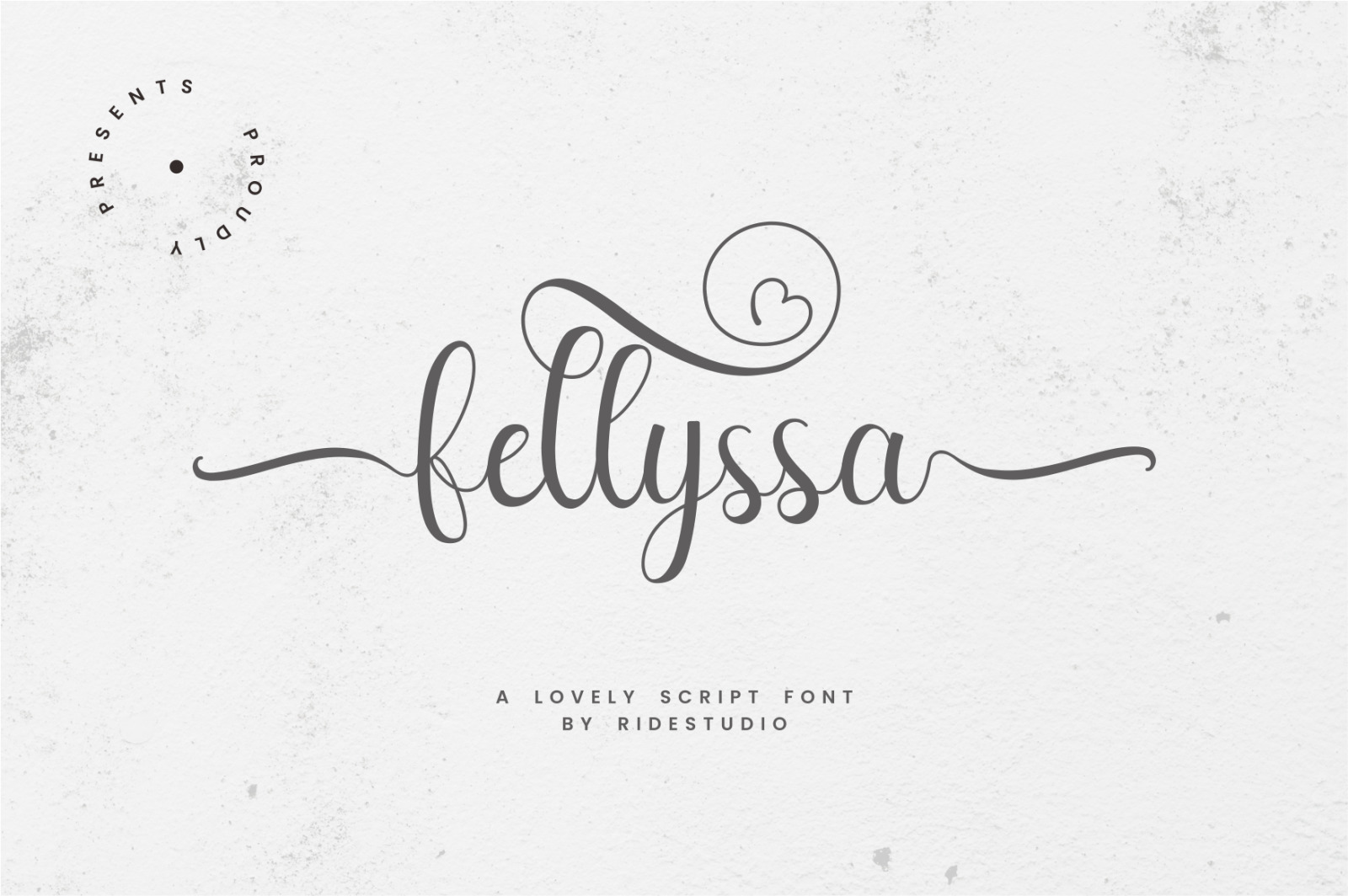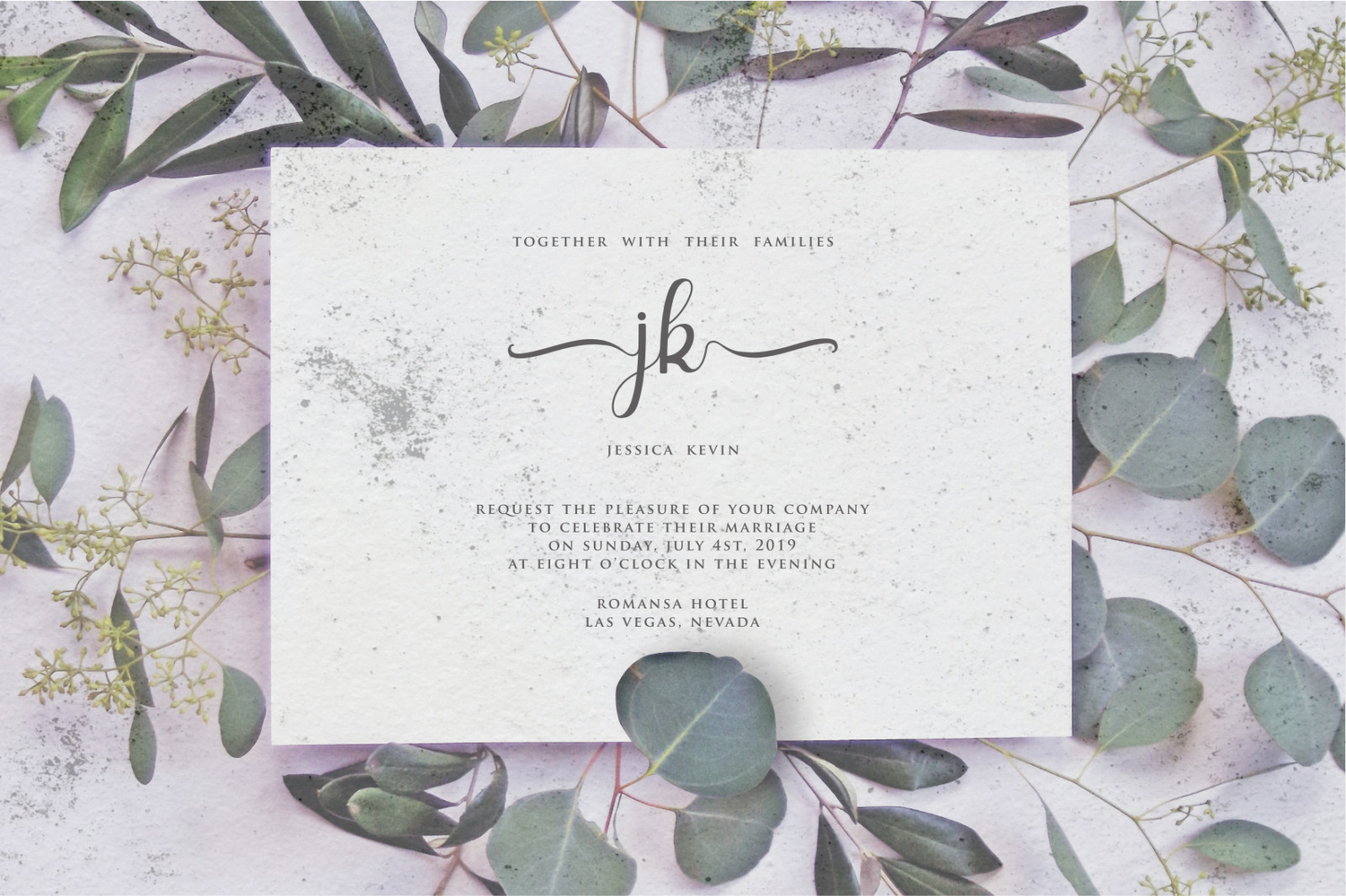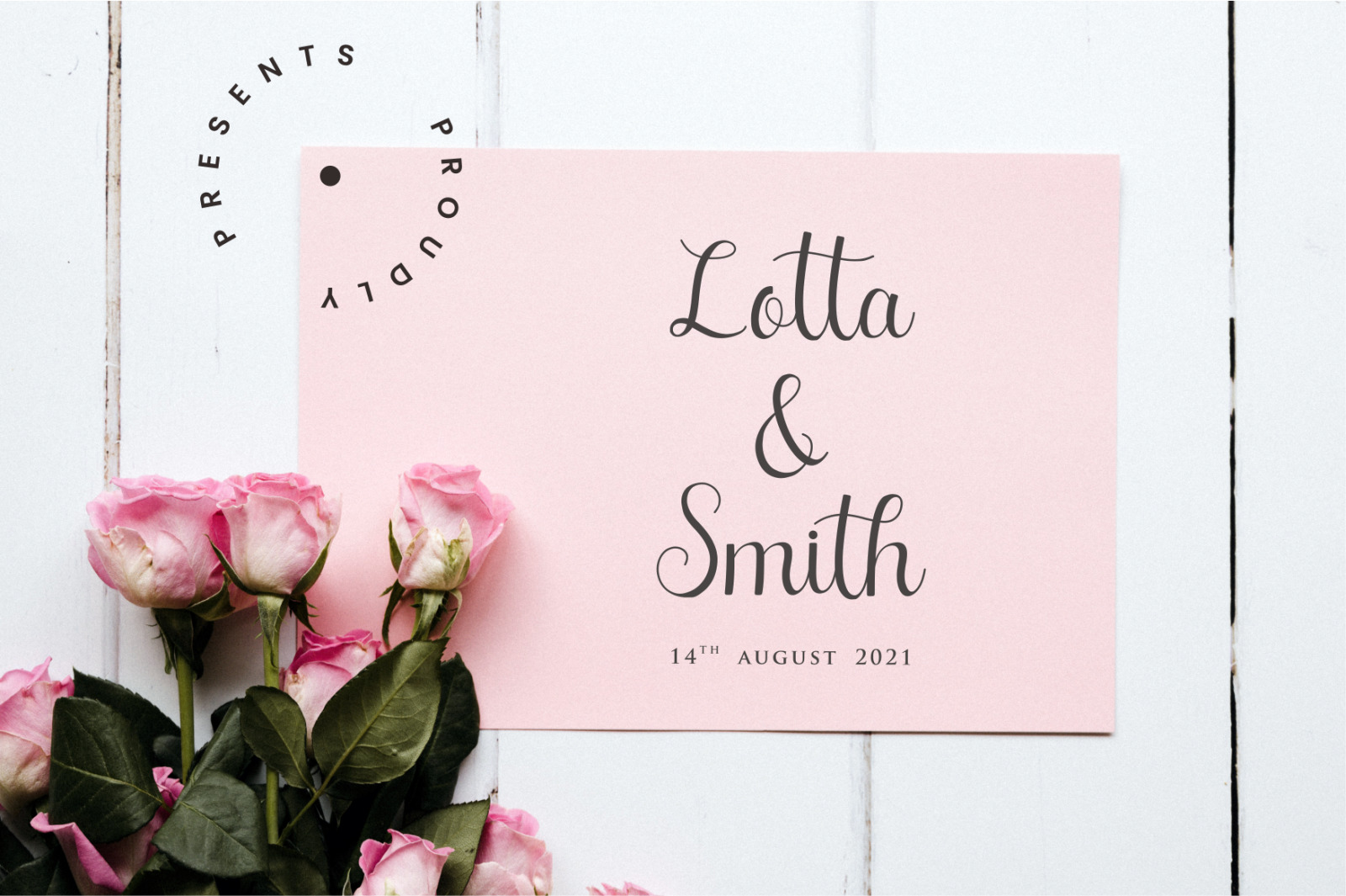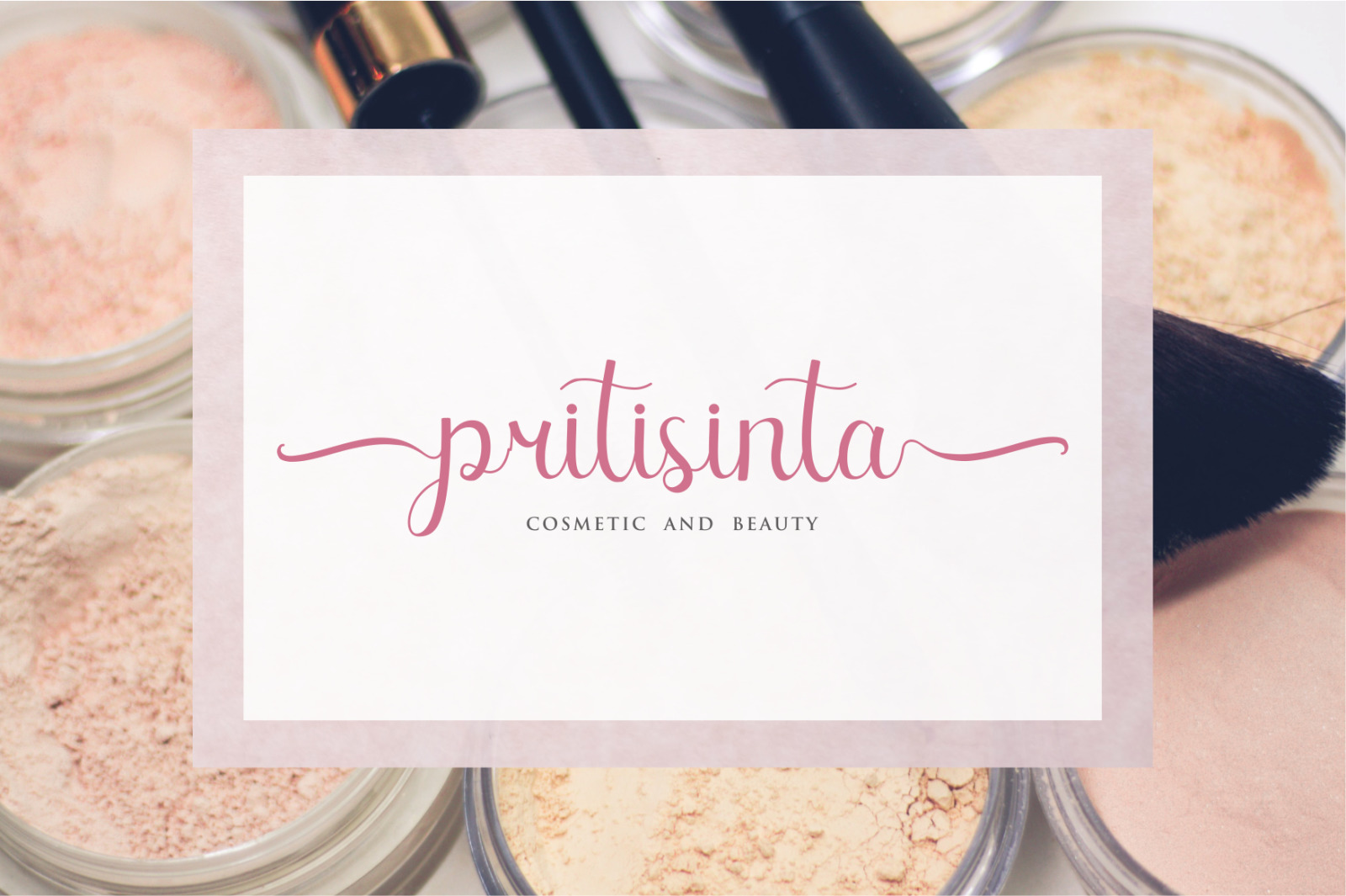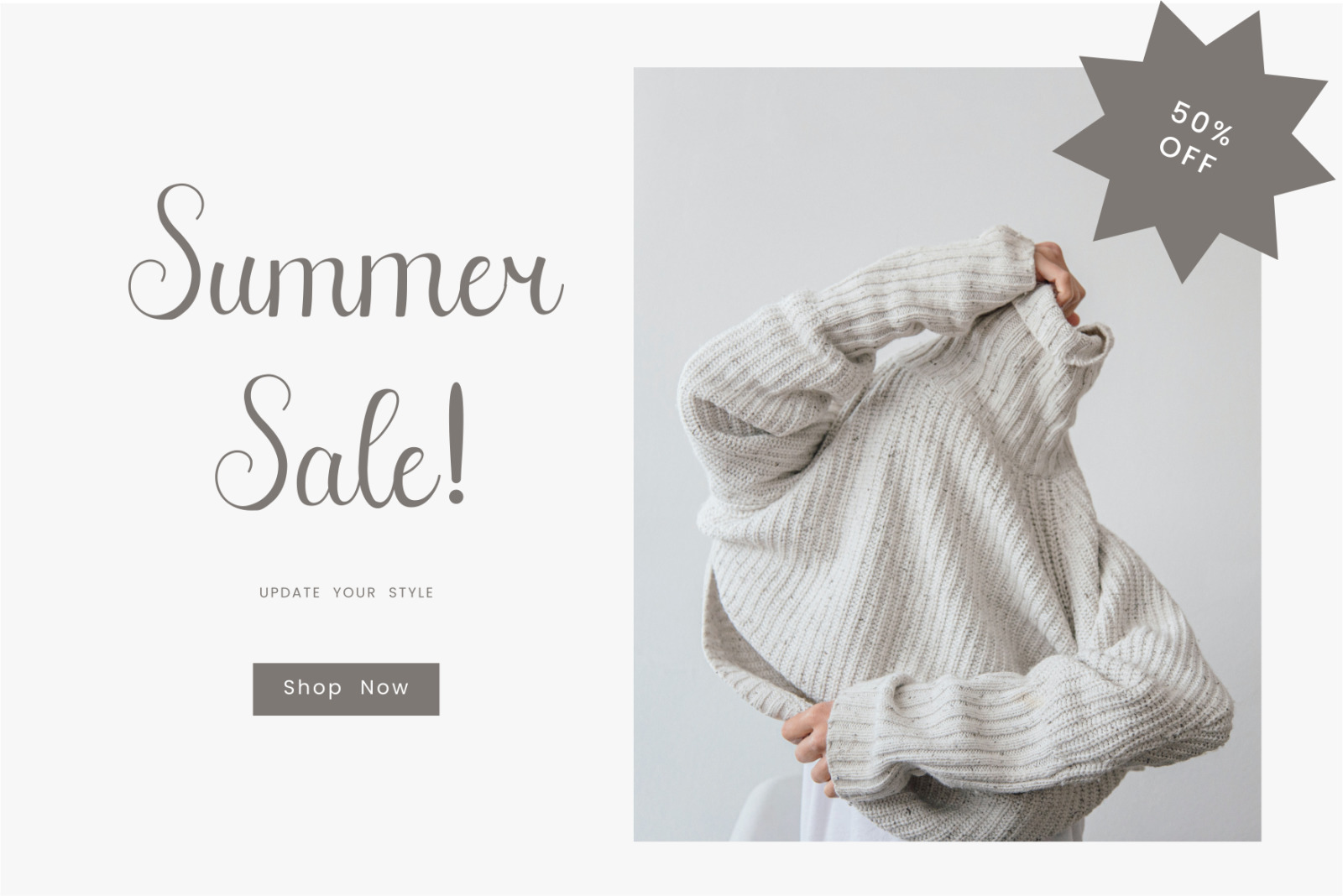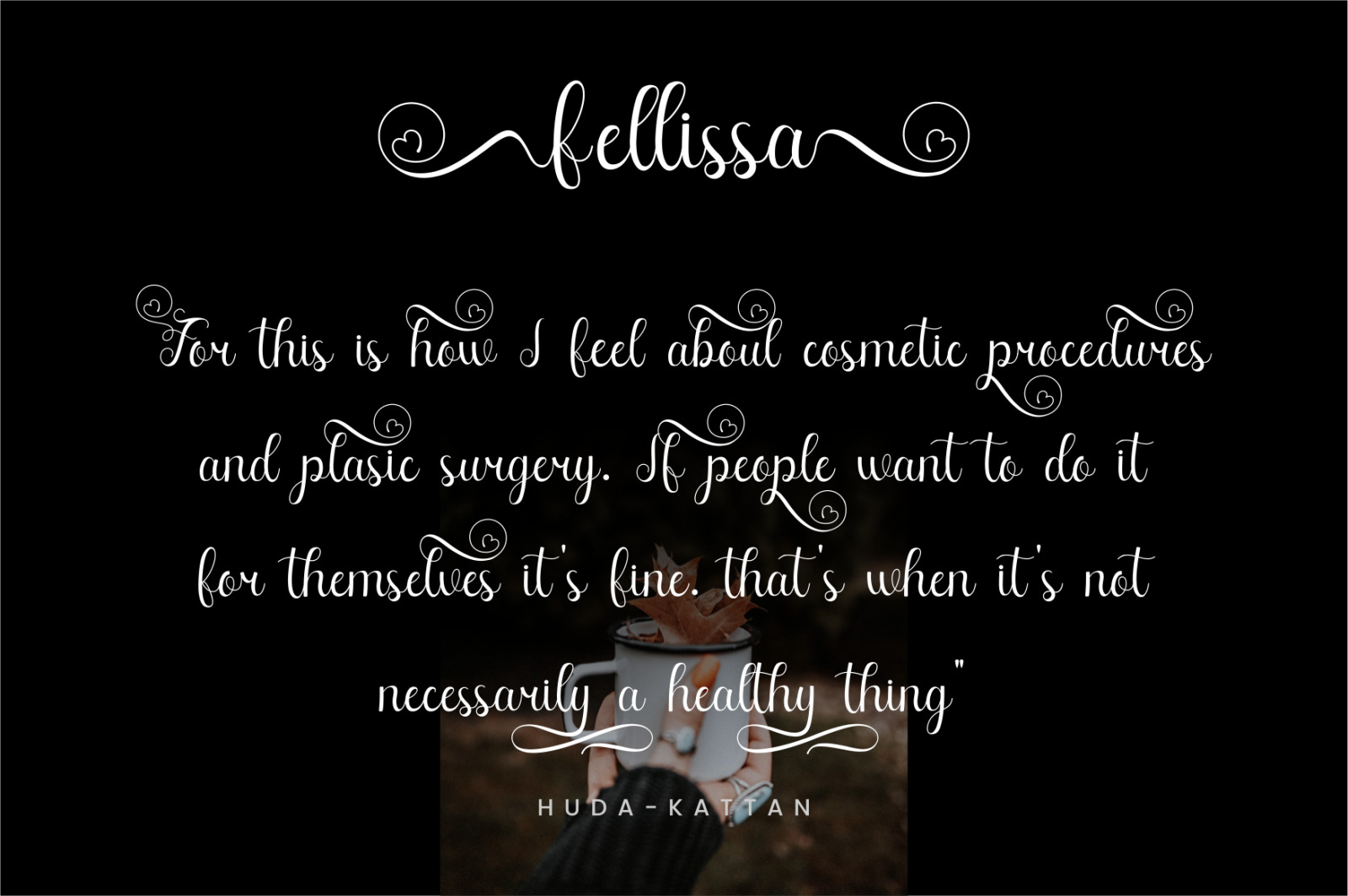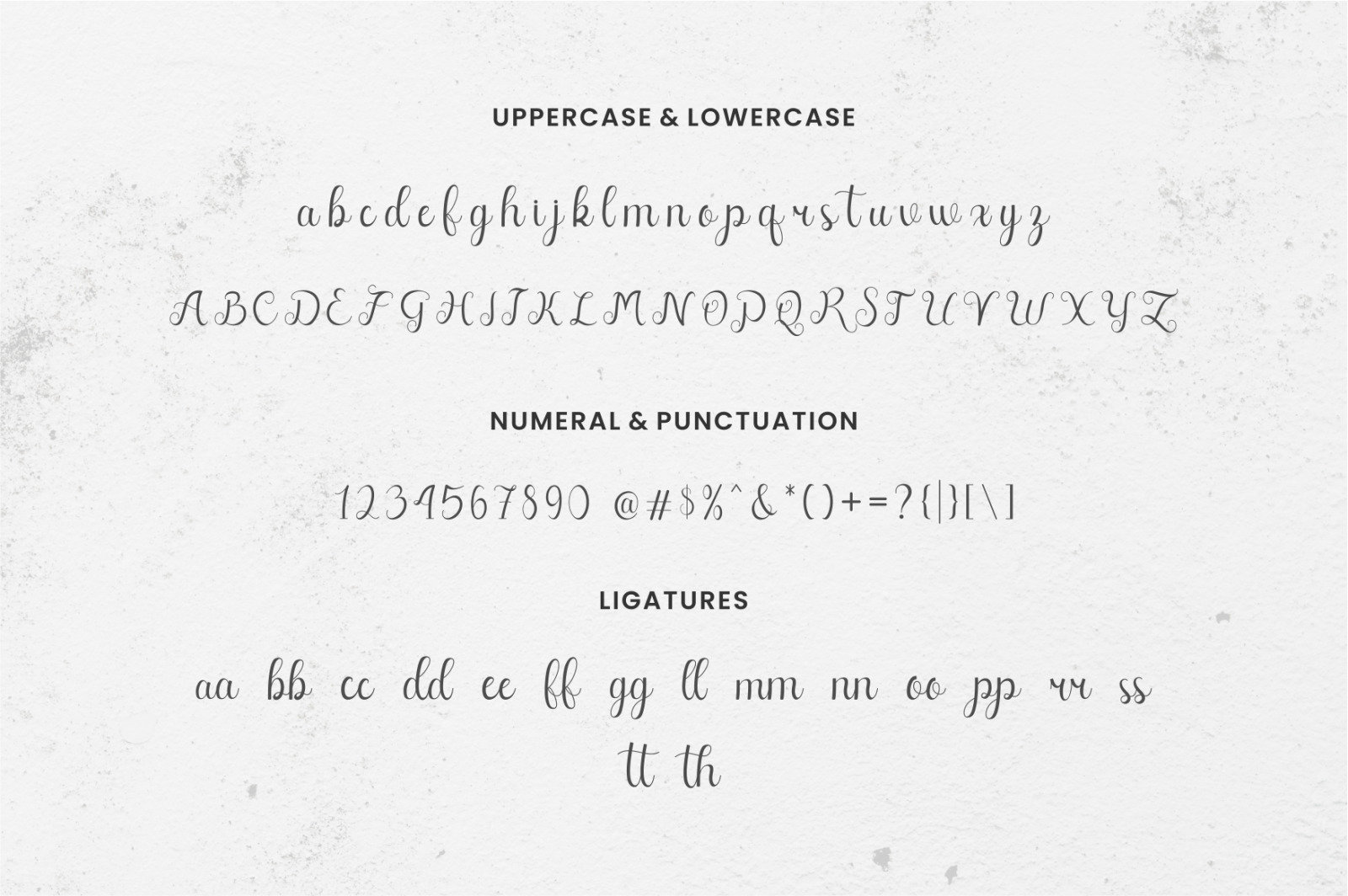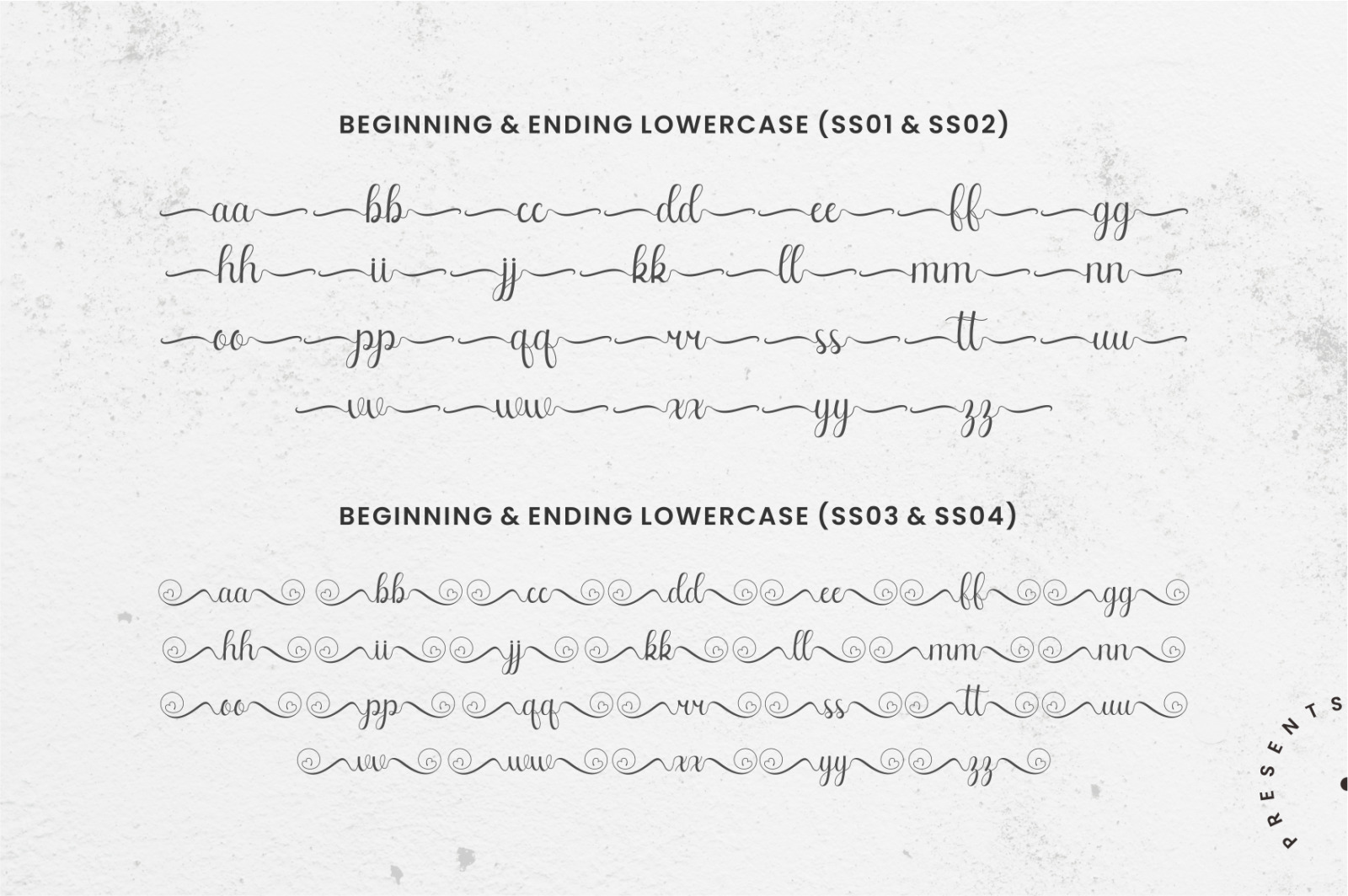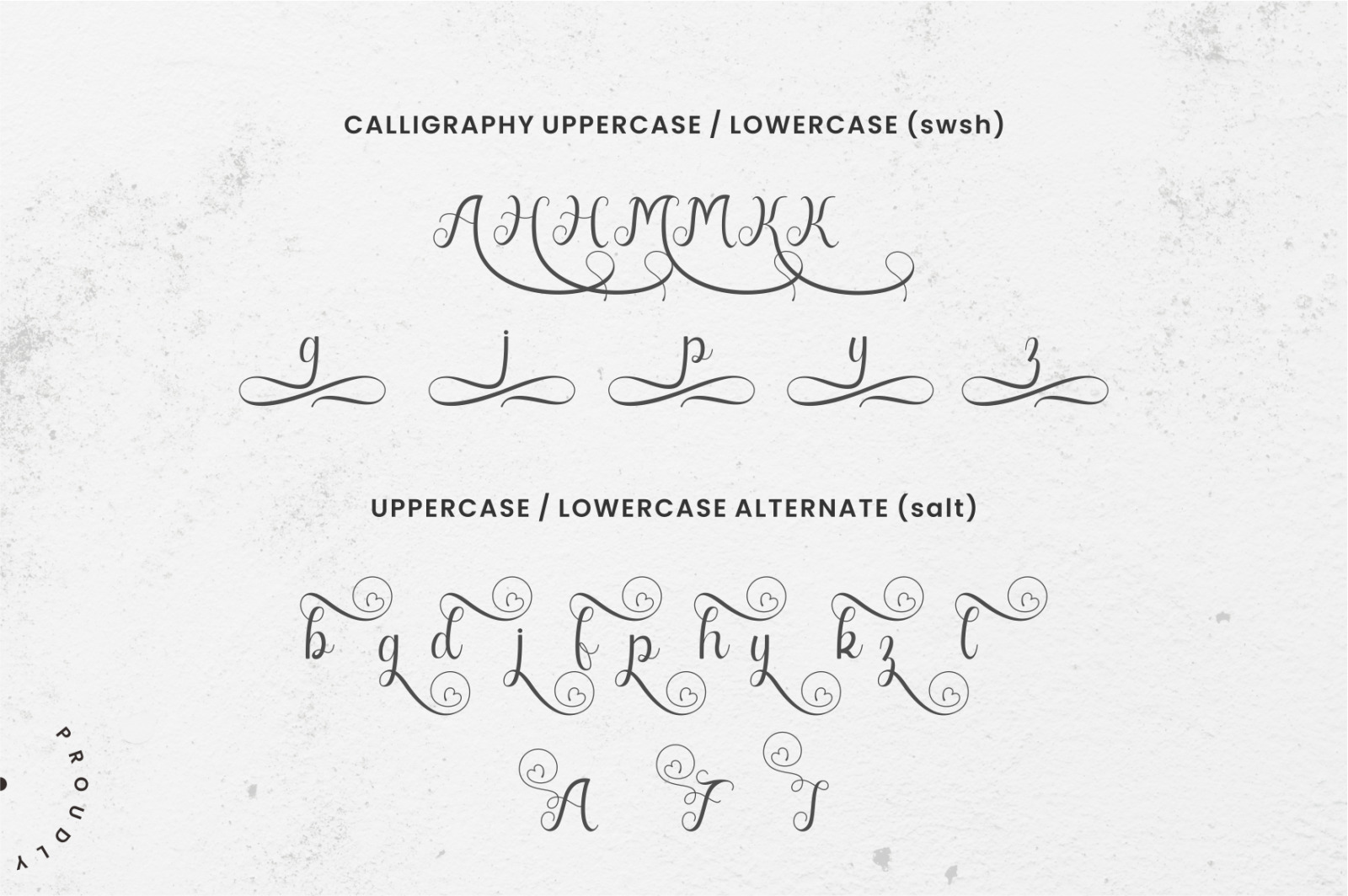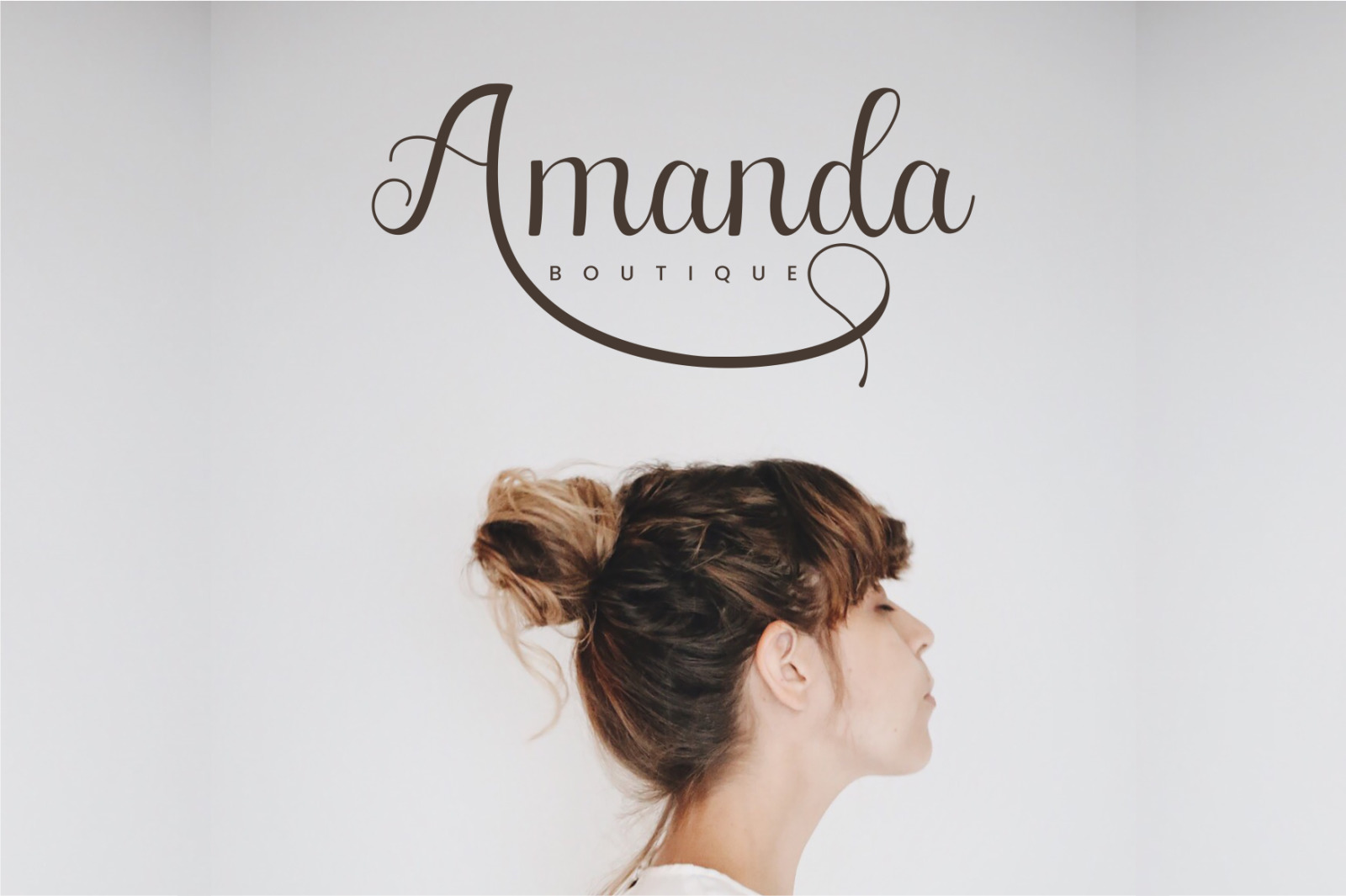
Fellyssa - Calligraphy Script Font
INTRODUCING - FELLYSSA SCRIPT FONT
Fellyssa is a lovely modern calligraphy script handwritten font.
The different letters make this font has its own charm.
Fall in love with its incredibly versatile style and use it to create spectacular designs.
- Ligature
- Uppercase and lowercase
- Numbering and Punctuation